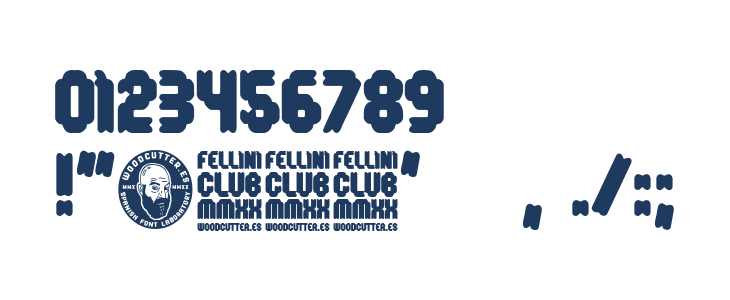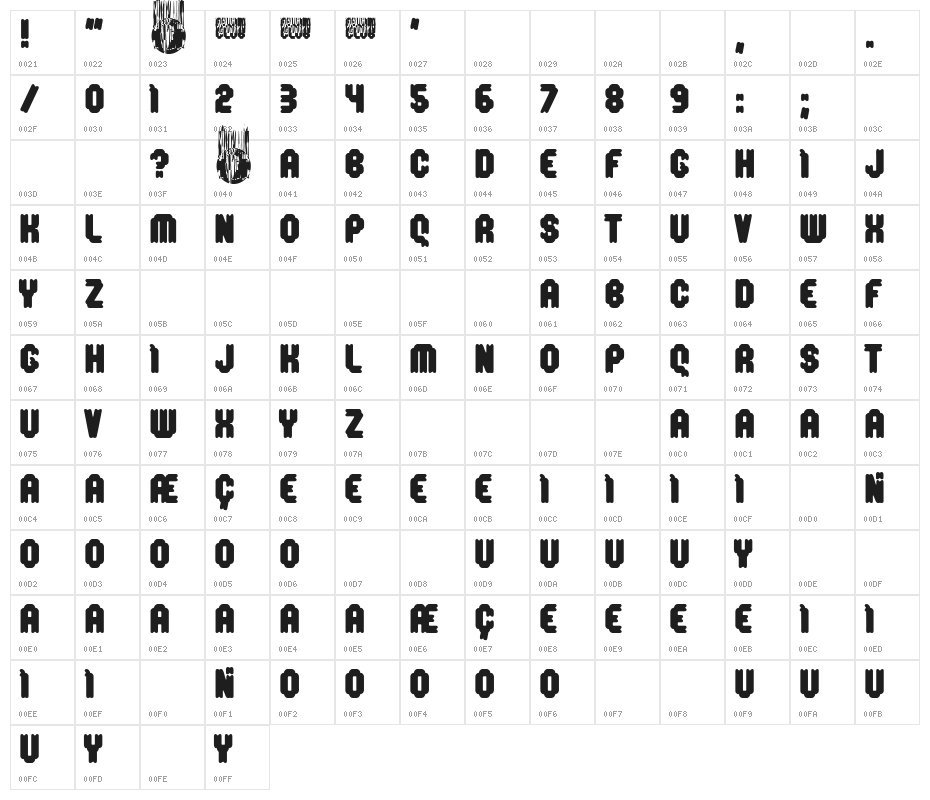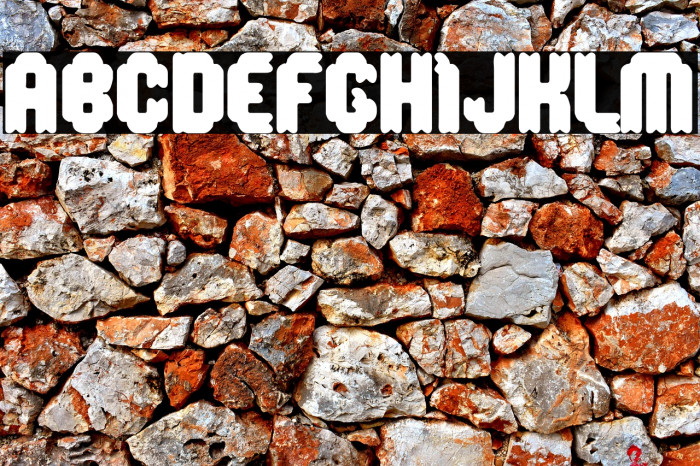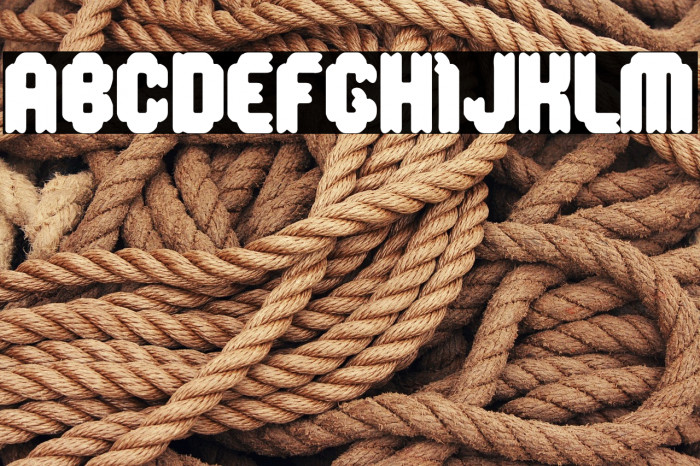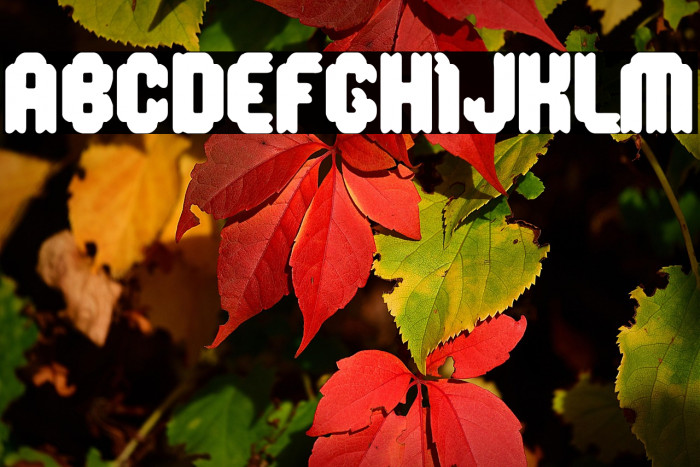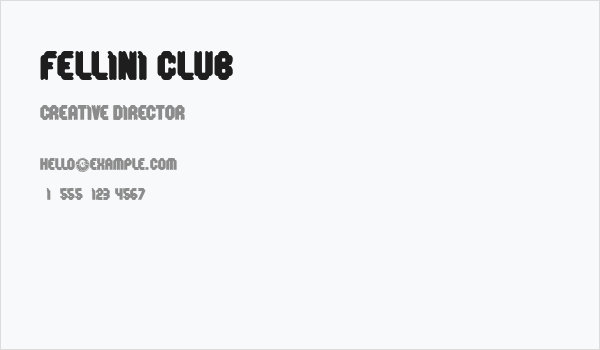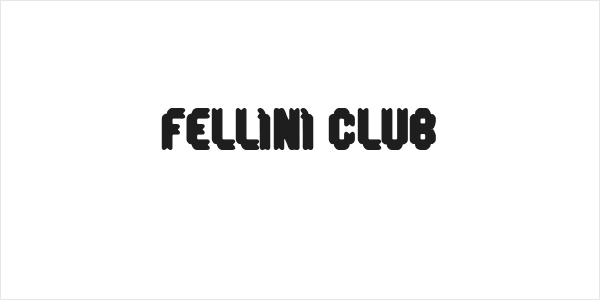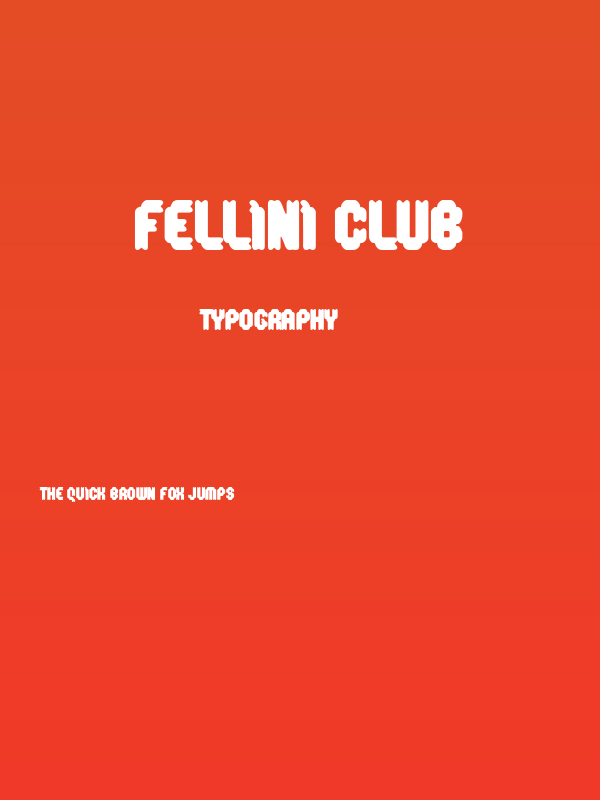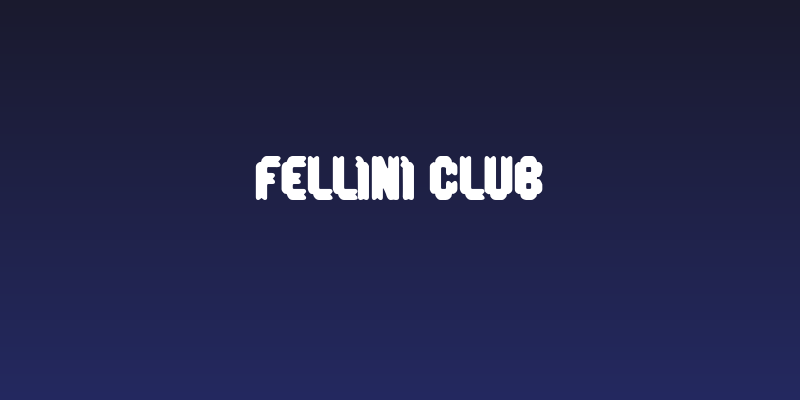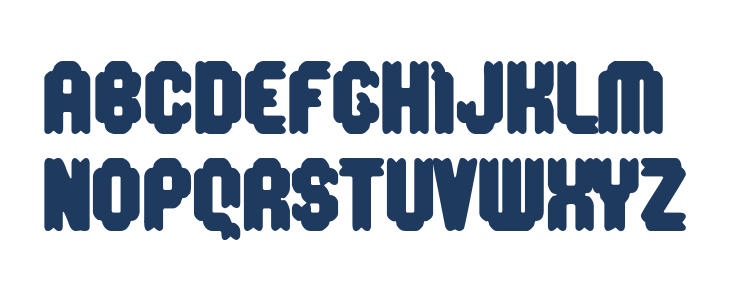
Fellini Club Font
Fellini Club Description
This font features a bold, blocky design with a distinctively modern and playful aesthetic. The characters are heavily stylized with thick strokes and unique cut-out shapes that give it a dynamic and eye-catching appearance. The uppercase and lowercase letters maintain a consistent style, with the numbers and special characters following suit. The font's design is reminiscent of retro or vintage signage, making it ideal for projects that require a bold statement. Its geometric forms and solid presence make it stand out in any design context.